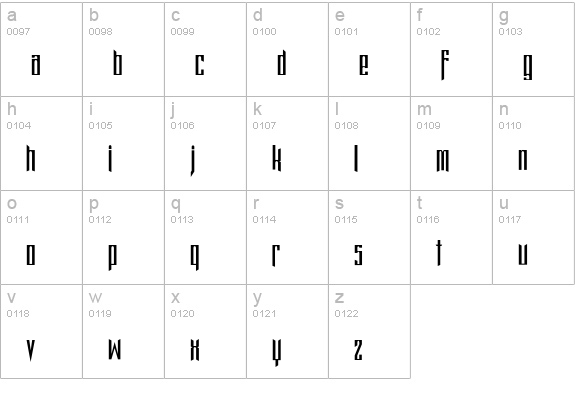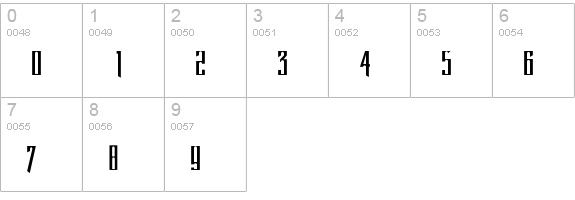
Seven-Regular is the standard, neutral variant in the Seven typeface family \xE2\x80\x94 well suited to general body text, paragraphs, and standard typographic work.
Introducing the magnificent Seven-Regular font, a true epitome of elegance and style. This exquisite typeface is the perfect choice for any project that calls for a touch of sophistication. With its sleek lines and perfectly balanced curves, Seven-Regular is sure to captivate and inspire. But what sets Seven-Regular apart from the rest? It's not just its stunning design, but also its remarkable versatility. Whether you're designing a logo, creating a poster, or crafting a striking headline, this font will effortlessly elevate your work to new heights. And the best part? Seven-Regular is freely available to download at FontsMarket.com. That's right, you can add this extraordinary font to your collection without spending a dime. Unleash your creativity and let Seven-Regular be the muse that takes your projects to the next level. With its wide range of international characters, this font is perfect for multilingual projects. From English to French, Spanish to German, Seven-Regular seamlessly adapts to any language, ensuring your message is conveyed with utmost clarity and elegance. The attention to detail in Seven-Regular is simply breathtaking. Each letter has been meticulously crafted to exude a sense of refinement and sophistication. Whether it's the subtle ligatures or the perfectly balanced kerning, every aspect of this font has been carefully considered to ensure a seamless reading experience. So, why settle for ordinary when you can have extraordinary? Download Seven-Regular for free at FontsMarket.com and let your creativity soar to new heights. Whether you're a graphic designer, a typographer, or simply someone with a passion for beautiful typography, Seven-Regular is the font that will leave a lasting impression. Get ready to add a touch of timeless elegance to your next project with this remarkable typeface.